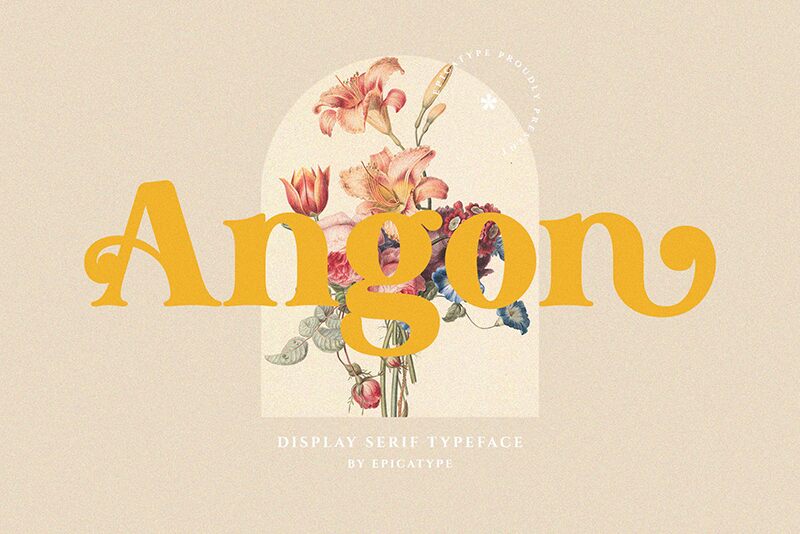
Angon
Introducing Angon, a bold serif font with a vintage touch by Epicatype. Perfect for projects needing an old-world aesthetic, Angon is the perfect choice for book covers, logos, posters and more.